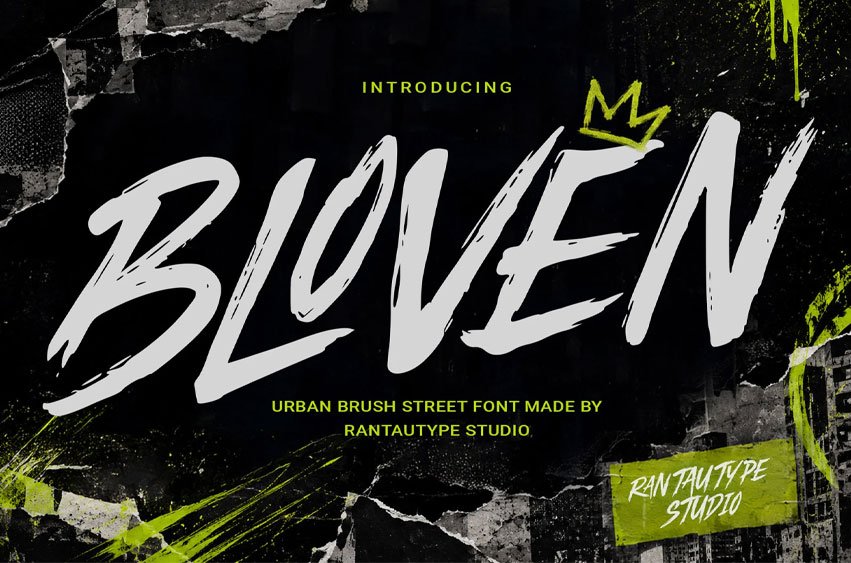
Bloven Font is an aggressive handcrafted brush energy with strong urban motion, raw edge breakup, and fast-stroke rhythm.
Bloven is a perfectly choice for any creative endeavor, creating, modern, lifestyle design such as logotype, title, cover, branding, display and magazine, social media posts, advertisements, printed quotes, product packaging, corporate brand, product designs, labels, photography, watermarks, special events and any other project with urban touch.